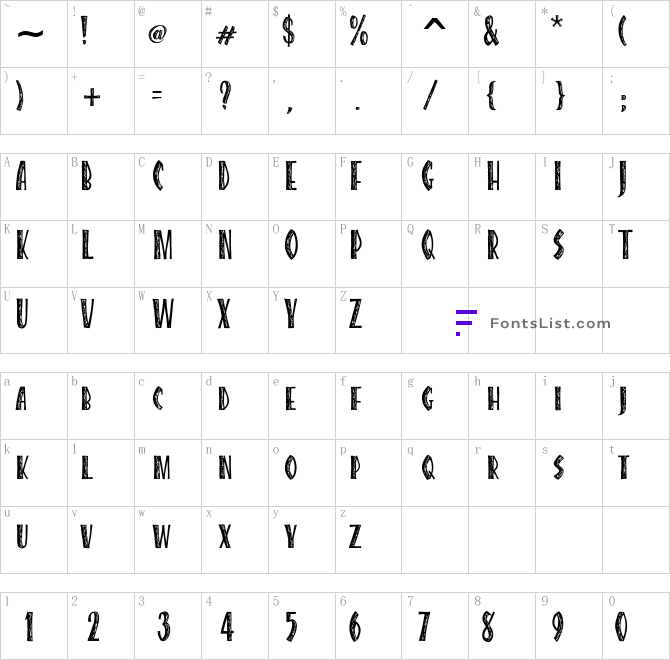
- Font Name:CaribbeanITC TT
CaribbeanITC-TT-Roman.ttf is a very beautiful artistic font, CaribbeanITC-TT-Roman.ttf is widely used in the design and printing of various books and pictures,CaribbeanITC-TT-Roman.ttf has a strong visual impact,CaribbeanITC-TT-Roman.ttf is a commonly used font in newspapers, magazines and books, and is used in posters, e-commerce Poster design, store design, logo design, font design and other fields.CaribbeanITC-TT-Roman.